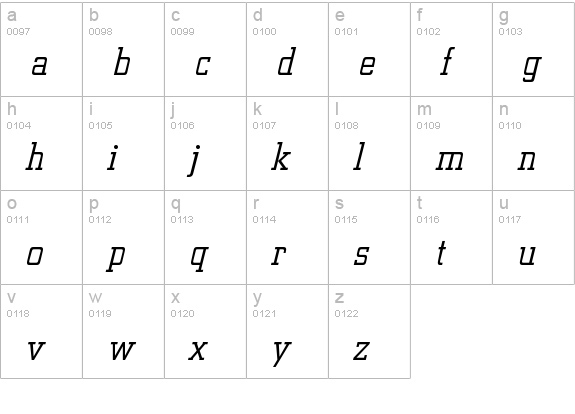
Berthold City Light Italic is a refined, elegant, italic variant in the Berthold typeface family \xE2\x80\x94 well suited to elegant body text, refined sub-headings, and luxury branding.
Berthold City Light Italic font is a sleek and elegant typeface that exudes sophistication and modernity. With its slender and graceful design, this font is perfect for adding a touch of sophistication to any project. The italicized style of Berthold City Light adds a dynamic and stylish flair to text, making it ideal for use in branding, advertising, and editorial design. What sets Berthold City Light Italic font apart is that it is available for free download at FontsMarket.com. This means that you can easily access and use this exquisite font in your projects without any cost. Whether you're designing a website, creating promotional materials, or crafting social media graphics, Berthold City Light Italic font is sure to elevate your designs with its refined and contemporary aesthetic. Download this font today and infuse your work with a touch of class and elegance.